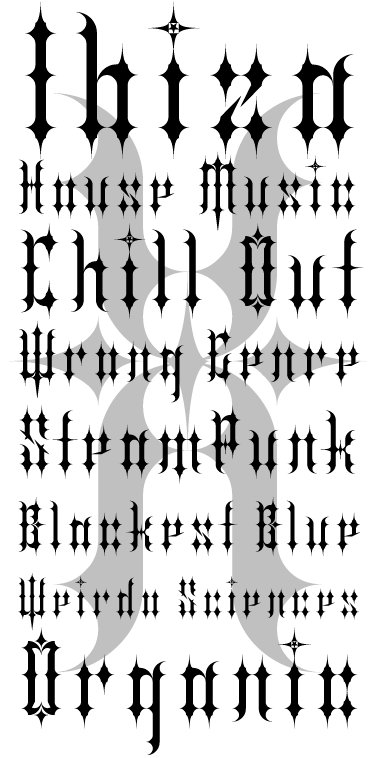
Black Organic
by laynecom
I thought I might use the new bricks to create an update of Black Metal. The result, however, was more like a steampunk thingy but more organic...
I love your specimen! I'm sure Black Organic will end up being used in a band logo or three. :-)
Impressive use of modularity, much more beautiful than your font "Black Metal" from where it comes.
Echoing SquarePeg… goth kids everywhere are rejoicing. I REALLY don't want to like this, but MAN, it is beautiful and extremely well-realized. Consistent, elegant, and, dare I say?... "fresh" looking. Another feather in your FS cap. 10/10
Far from being a goth or metalist myself, I am still fascinated by the aesthetics in those kind of blackletter typefaces. After all, they are the oldest print typefaces and they have a history.
I started out imitating Aeronaut - which you can still see in the u and n - but after a while it became more and more gothic and I had a hard time not to imagine the names of Norwegian black metal bands set in this... That's why I called it Black Organic...
Maybe I can come up with a friendlier, more flowery, ornamental version called Green Organic or so.
It is organic ... it grows on you the more you look at it. 10/10
But 9.99/10 (10/10) because the T looks a bit out of place... Congratulations for the Top Pick! :D
I can see where Umbreon is comig from. The T is a bit deep but with a few adjustments it should be fine. Keep going with it!
Very good! But e looks like it's missing something at the bottom.
wow love this organic blackletter
Both the T and the e are purposely created this way. As I said, I had the band logos of black metal bands in mind, although I'm not into the genre at all. But the somewhat doomed T and the e missing a lower jaw seemed to be quite fitting.
I will turn to happier typefaces in the near future, though...
love the E W X and M.
not sure how helpful the roman numerals are in the long run.
great font.struct.
Sublime. 10/10